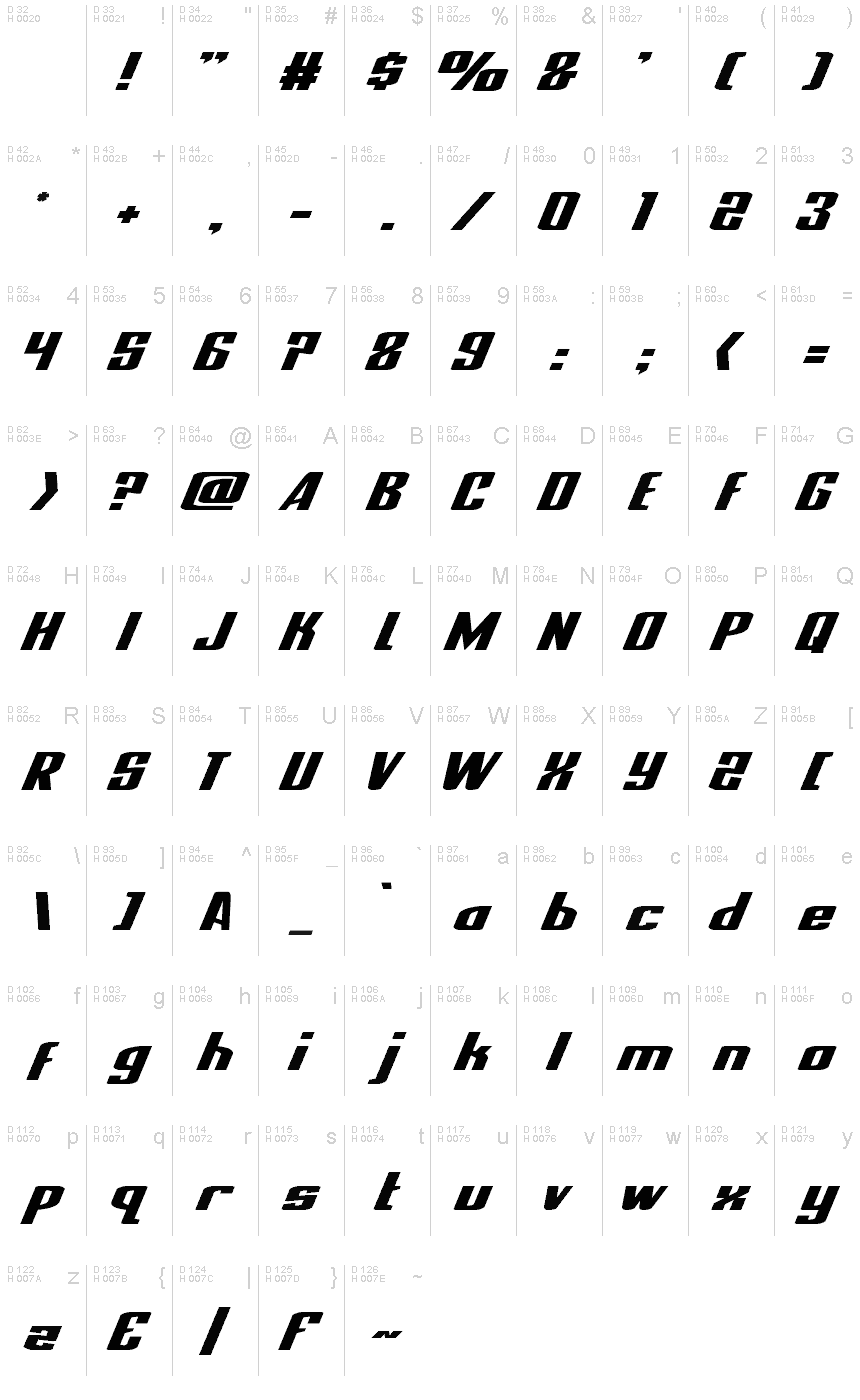
National Express Expanded Italic
National Express Expanded Italic is a bold, techno-inspired font that commands attention. Designed by Daniel Zadorozny, this display typeface exudes an ultra-modern aesthetic with its sharp, angular letterforms and sleek, extended proportions. The uncompromising, industrial-tinged style lends itself particularly well to digital and print applications that require a striking, futuristic visual impact, such as branding, event promotion, and product packaging.
The font's confident, attention-grabbing presence makes it an ideal choice for headlines, logos, and other prominent typographic elements, where it can effectively convey a sense of technological dynamism and progressive design.